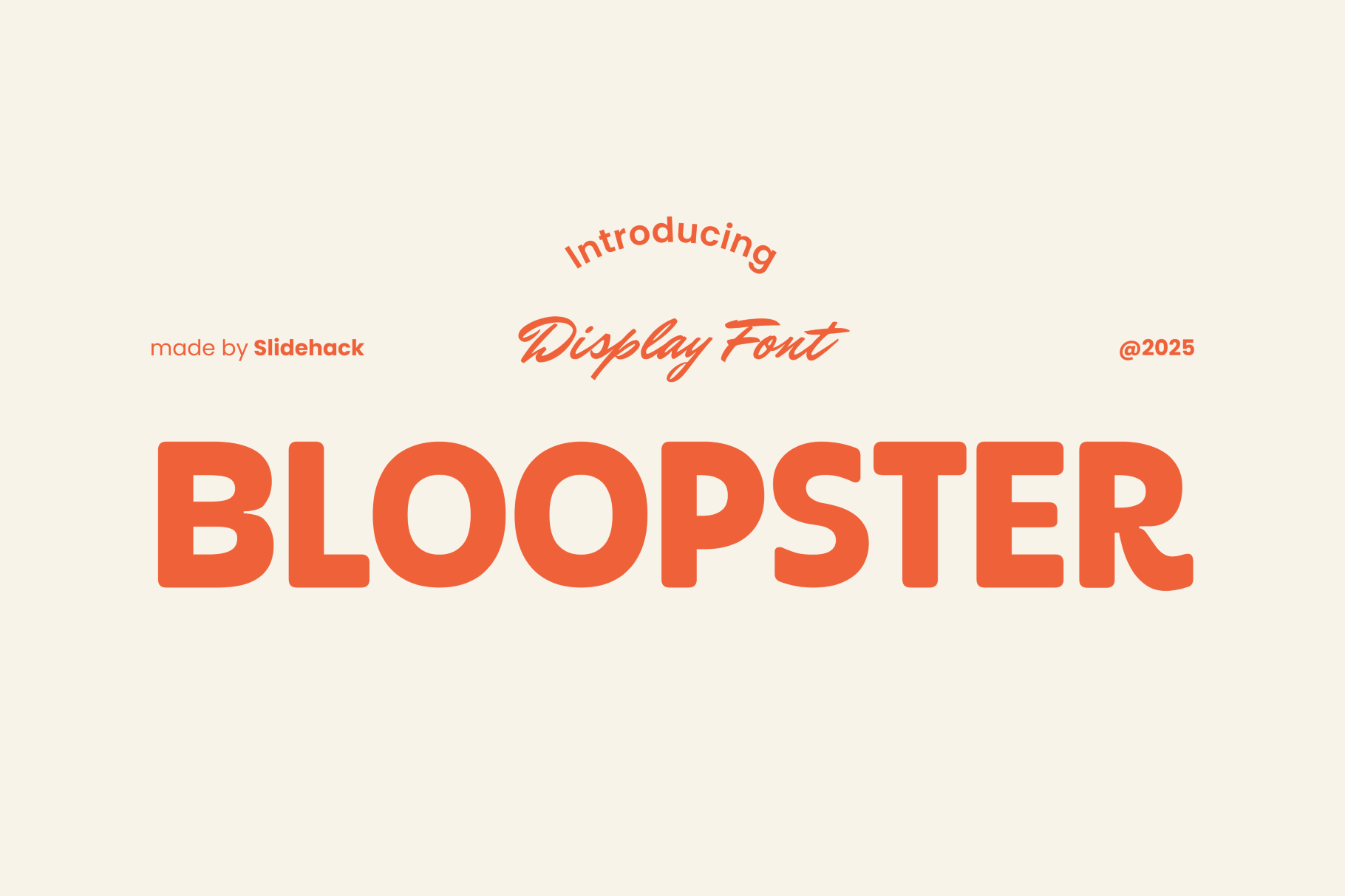
Bloopster - Bold Display Font
Bloopster is a fun, rounded display font with a bold, friendly personality, perfect for branding, headlines, kids’ content, and playful projects. With smooth curves and a retro-modern feel, Bloopster adds charm and approachability to your designs. Great for posters, packaging, and logos that need to pop with character.